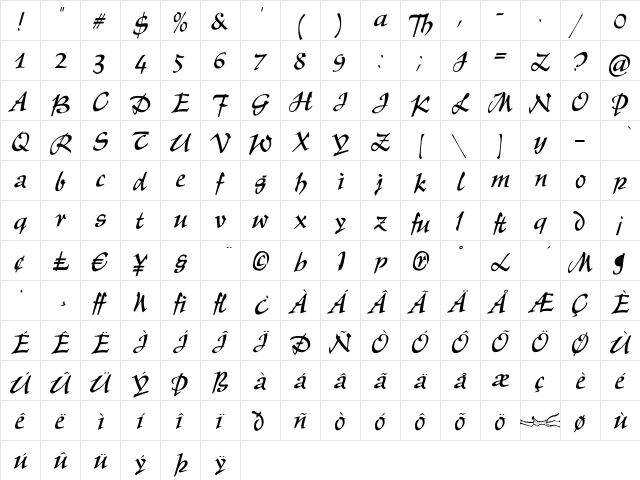
Tiger Script Regular
Design Context for Tiger Script Typeface
Tiger Script flows with the natural rhythm of handwritten lettering, making it ideal for designs that call for warmth and personal expression.
Font Pairing: Combine Tiger Script with a simple geometric sans for maximum contrast — the tension between flowing curves and clean structure is a classic typographic pairing.
Pro Tip: Use Tiger Script for short runs of text — names, titles, or taglines. Extended body copy in script faces tires the eye quickly.